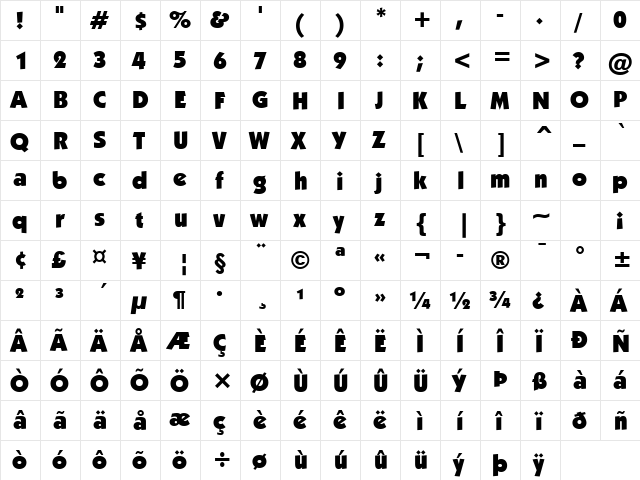
Strippenzieher Ultra Font Preview
Strippenzieher Ultra
Design Context for Strippenzieher Typeface
Strippenzieher offers clean, dependable letterforms without strong stylistic allegiance, making it a practical choice for designers who need flexibility.
Pro Tip: Use Strippenzieher in both headline and body roles to test its range before committing to a single application.